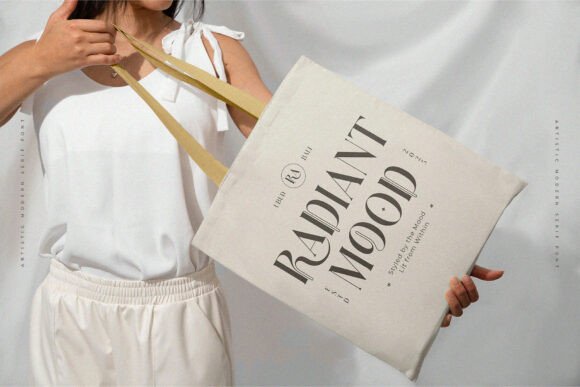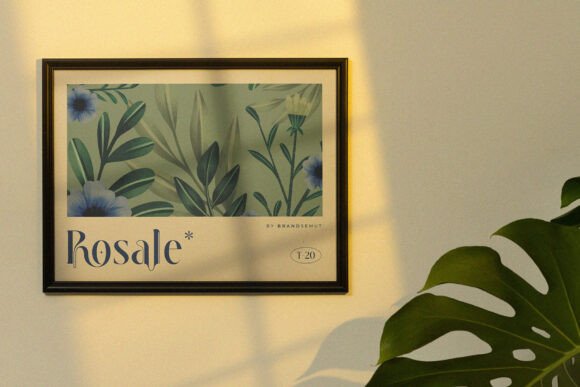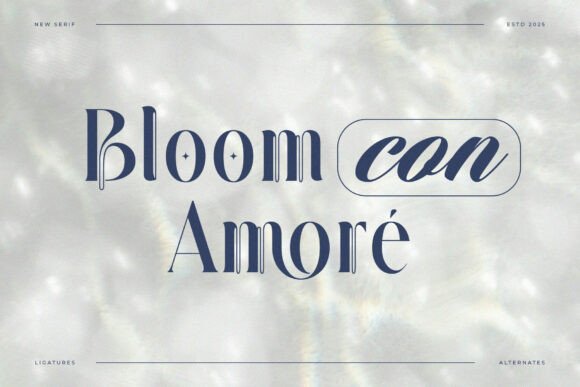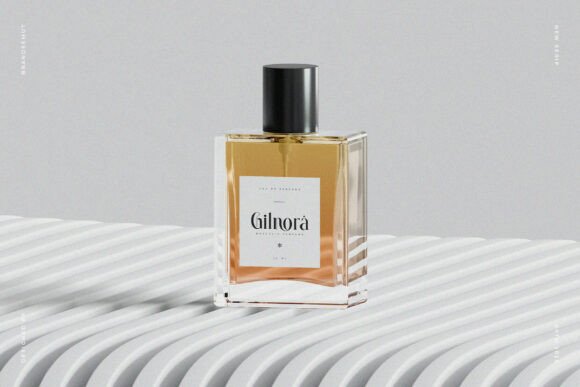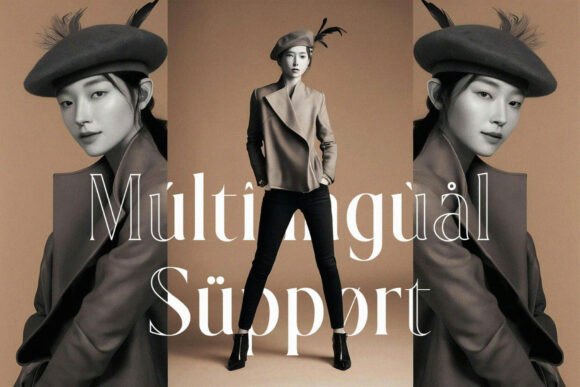
Introduction to Quante Font
Quante is a refined and artistic modern display serif typeface that masterfully balances classical elegance with contemporary experimentation.
Designed with exquisite attention to detail, Quanteโs letterforms are enriched by stylish curves, sharp cuts, and decorative terminals that infuse every glyph with unique flair It embraces the timeless sophistication of serif structure while introducing fresh, expressive elements that make it ideal for visual storytelling across premium and artistic design projects.
Key Features of Quante Font